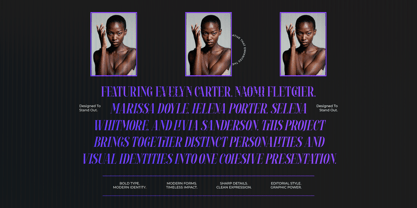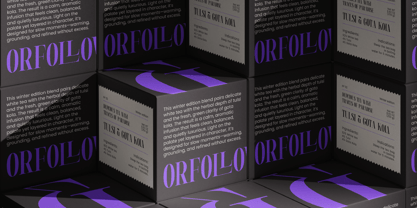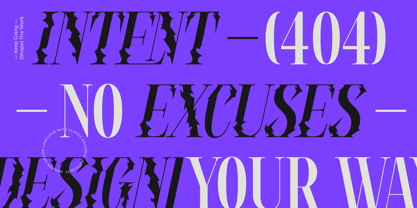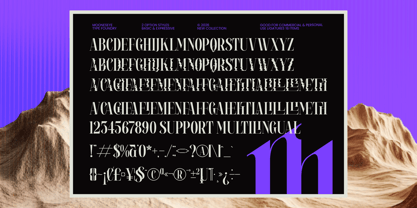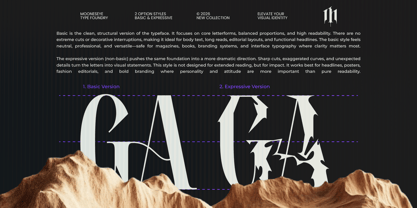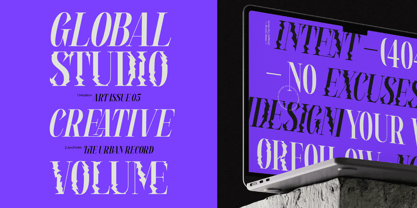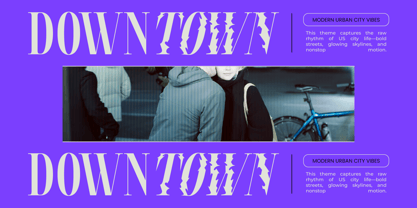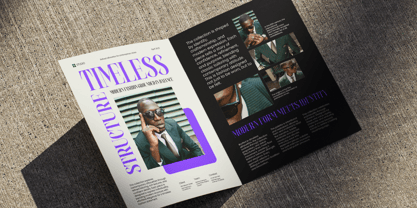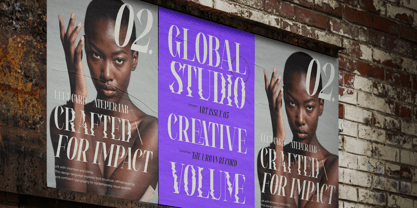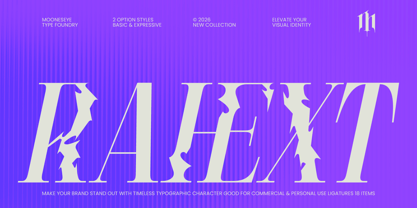
Rahext
por Mooneseye Studio
La familia tipográfica Rahext fue diseñada por Elhaq Farid y publicada por Mooneseye Studio. Rahext contiene 2 estilos y opciones de paquete familiar. Más información sobre esta familia
Rafext is a dual-personality typeface designed for those who aren't afraid to break the rules. It captures the sophisticated soul of a classic high-contrast serif and injects it with a sharp, "distorted" edge. Whether you need the clean, liquid-smooth lines of the Basic version for a luxury logo or the aggressive, razor-like serrations of the Expressive style for a streetwear drop, Rafext gives you the best of both worlds in one package. This font is built for the "hero" moment of your design. Visualize it on a glossy avant-garde magazine cover, a techno album sleeve, or edgy premium packaging. It’s intentional, it’s bold, and it’s designed to turn heads in an overcrowded digital space.